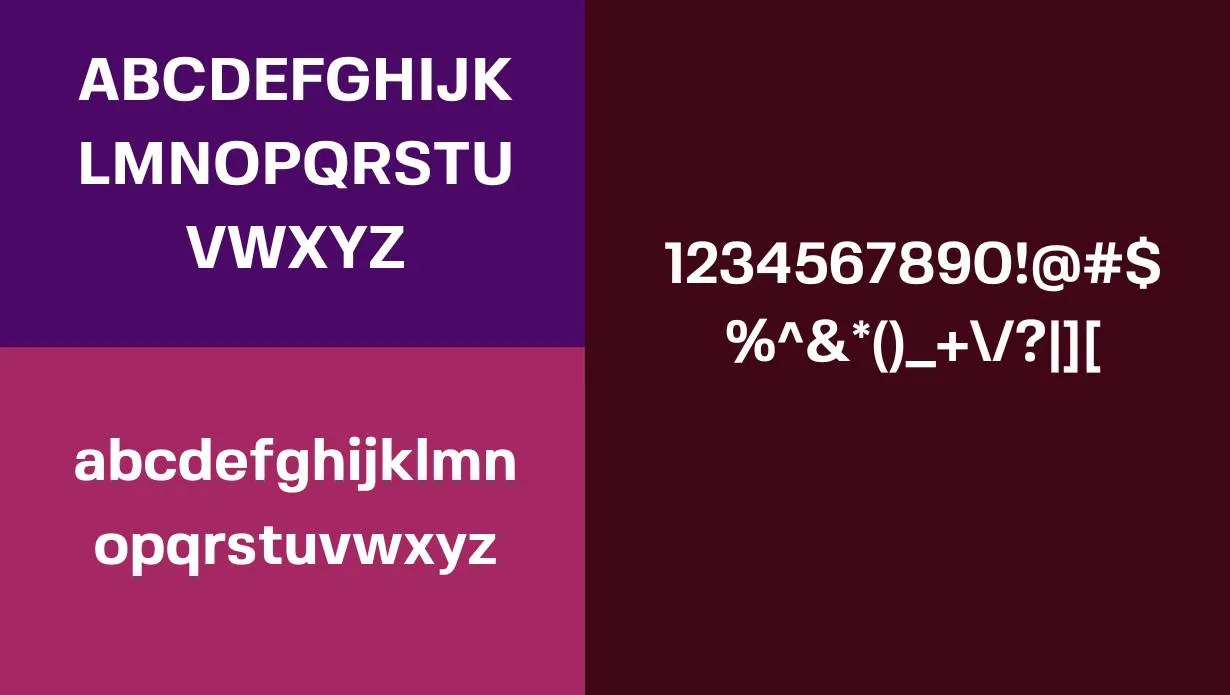
Fivo font is like a playful and energetic friend for your words. The letters have a dynamic and whimsical design, making it suitable for creative and fun projects. It’s a great choice for playful notes, children’s materials, or any content that needs a touch of joy and creativity.
This font is like the vibrant and lively atmosphere of a cheerful celebration. It’s like using words to create an experience that feels full of energy and excitement. Fivo font brings a sense of playfulness and creativity to your words, making them feel like a joyful expression.
| Name | Fivo Font |
| Designer | Alexander Slobzheninov |